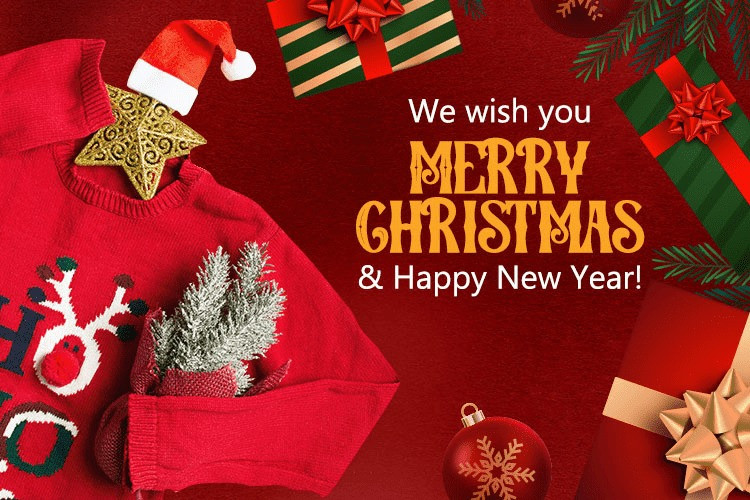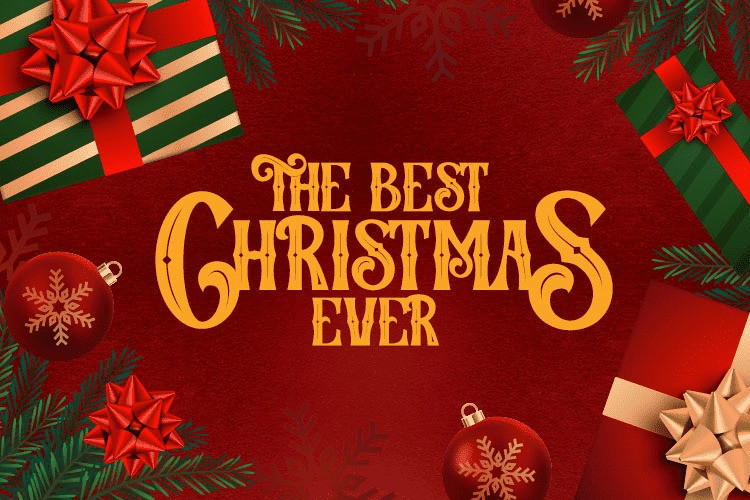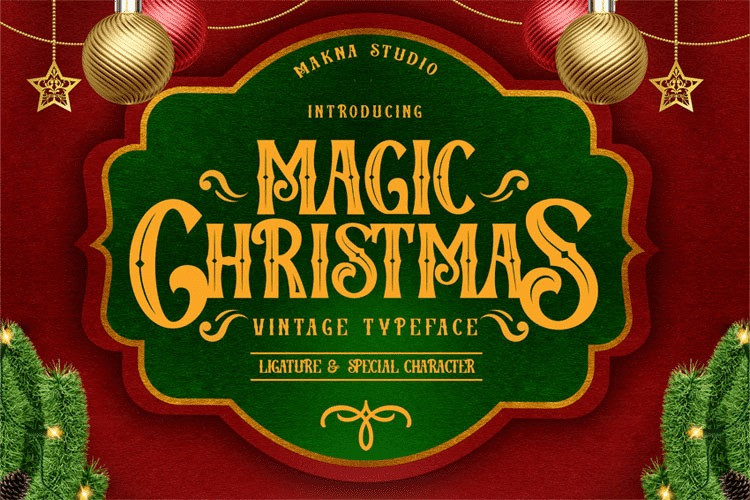
Magic Christmas Font
Magic Christmas Display Font is vintage display font for celebrate christmas day. good for project like banner shop, invitation card, christmas card , or movie with vintage style like home alone.